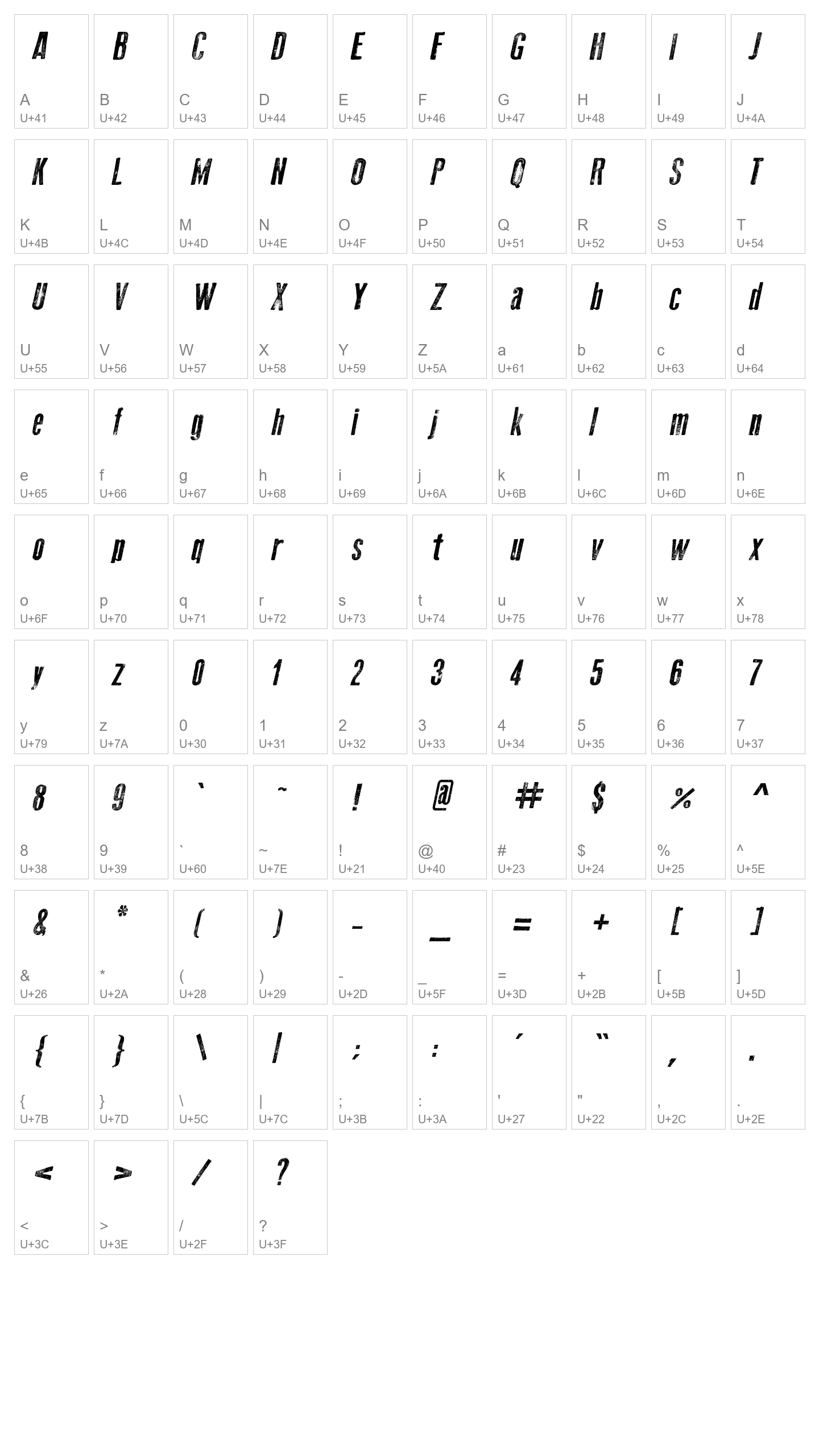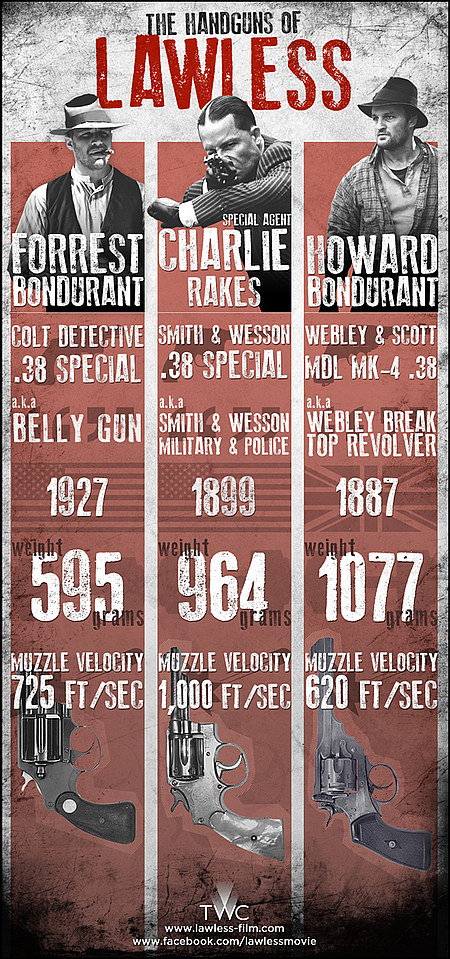
Old Press
Author: Galdino Otten Fonts
The movie Lawless uses the font Old Press in its print and digital media. This is a movie poster with Lowless Old Press font in Italy.